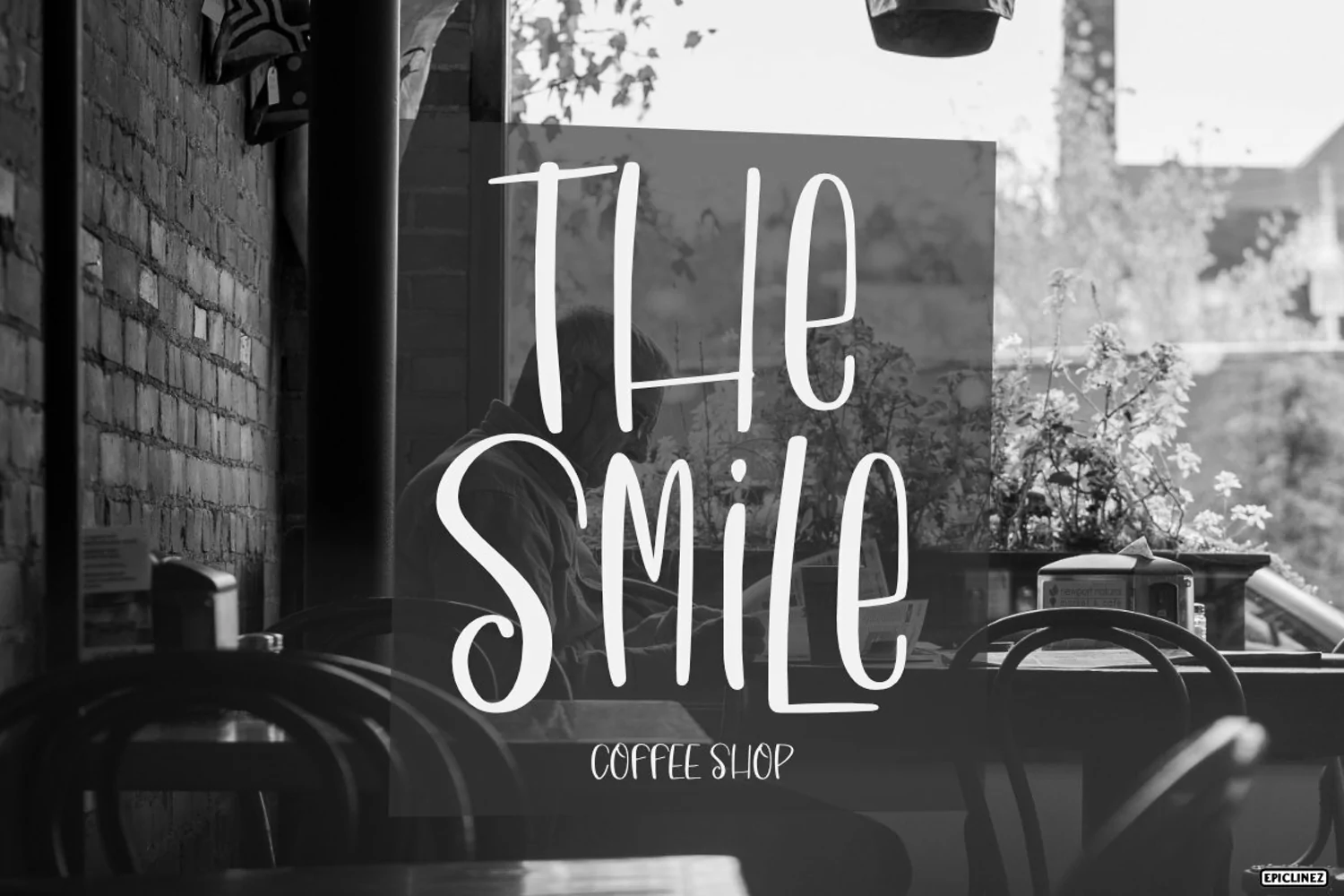
Full Of Love is a fun and lovely handwritten font. Get inspired by it's quirky look and use it to add that special, playful touch to your designs.
Full Of Love